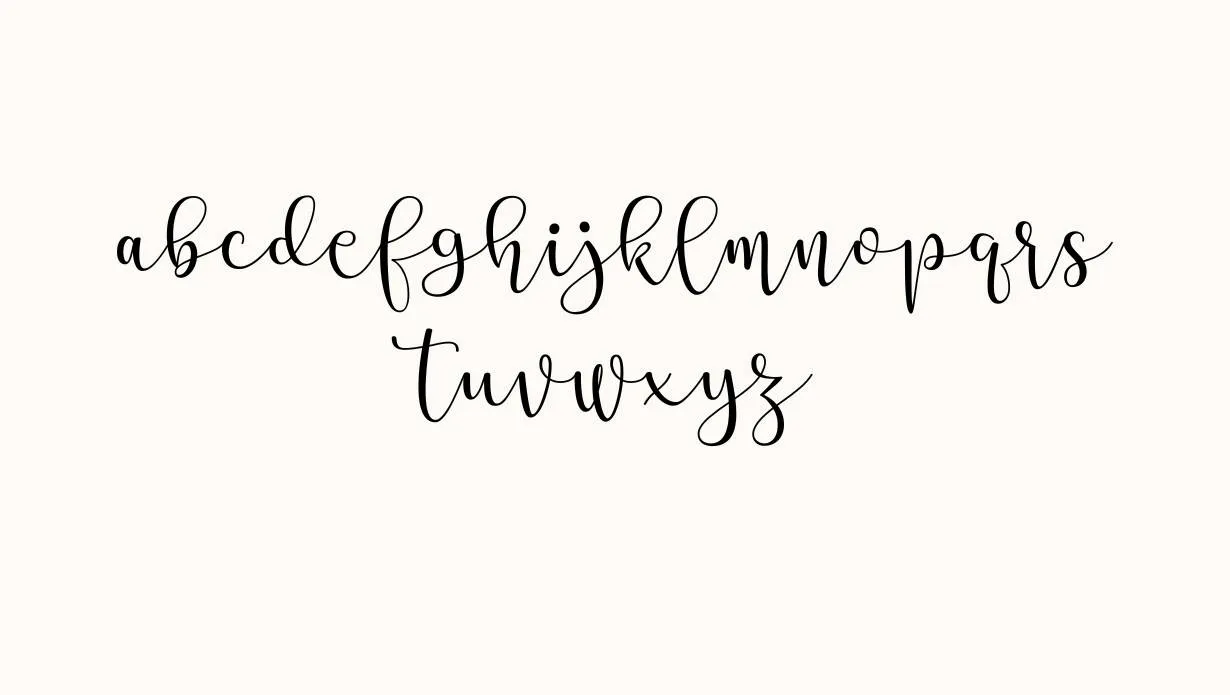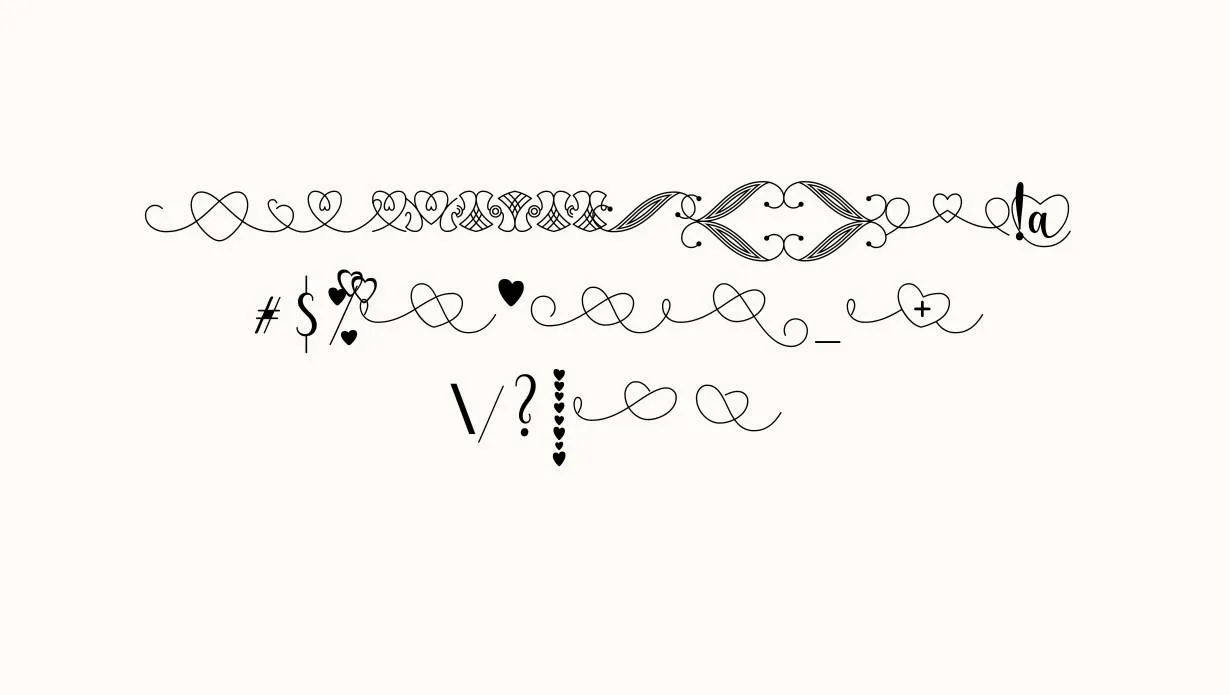
Stea Calligraphy Font offers a graceful and flowing script typeface. While I don’t have specific information about the designer, this font is commonly chosen for upscale branding, wedding invitations, and elegant design projects.
Its cursive style and fluid strokes create a sense of grace and charm, making it perfect for projects requiring a touch of class.
| Name | Stea Calligraphy Font |
| Designer | Situjuh Nazara |